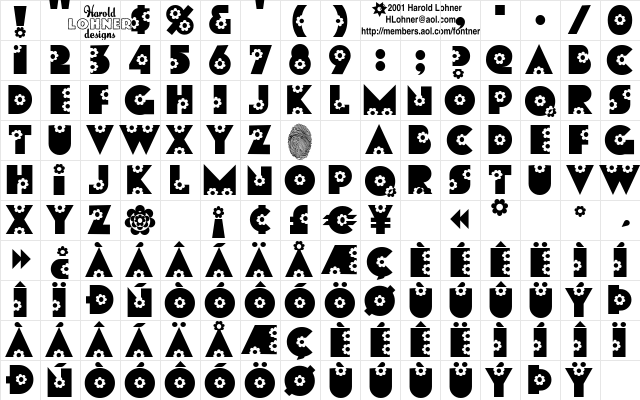
Flores Regular
Copyright: FLORES computer font v1.0 ©2001 Harold Lohner "  " http://members.aol.com/fontner Based on a florist's sign in Valencia, Spain.
Design Context for Flores
Flores is a composed and adaptable typeface that performs quietly and consistently across a wide range of design contexts.